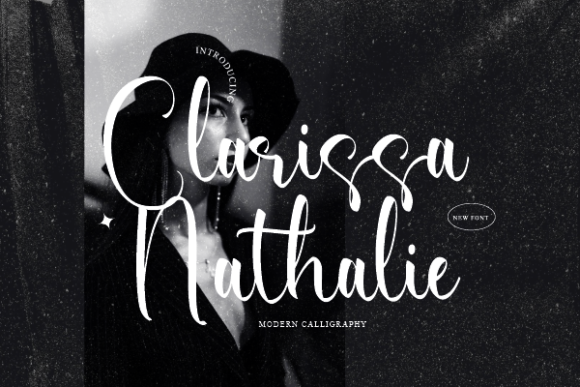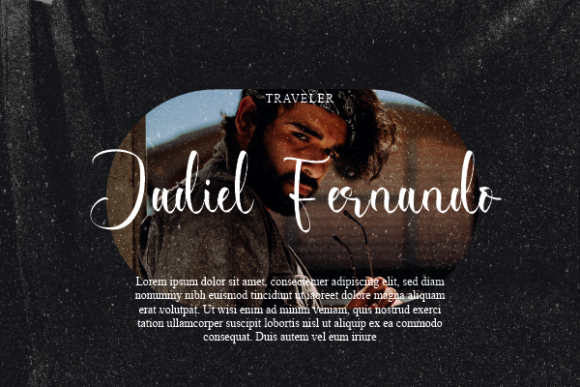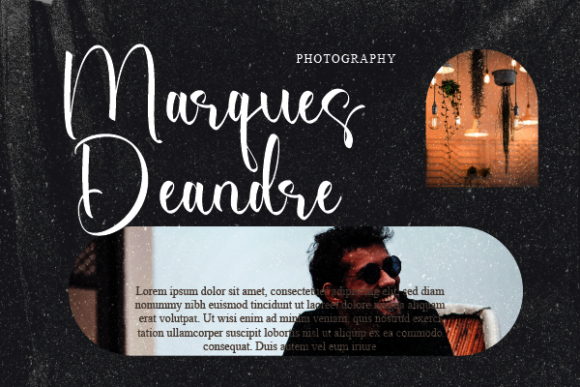
About Clarissa Nathalie Font
Clarissa Nathalie is a sweet and subtle handwritten font that is crafted with great care for maximum results. It will add elegance and class to any of your design projects. This font can be used to write various kinds of products according to the aspect of each need.